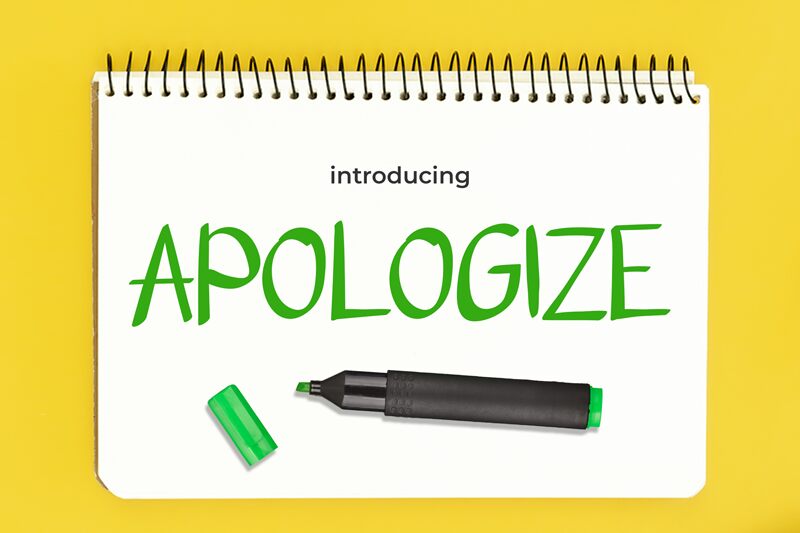
Apologize font by Pinisiart is a free handwritten font with a personal, energetic touch. The smooth curves and playful characters offer a clean and modern look, perfect for readers’ attention when delivering an informal style. Casual and fun, this font is approachable, and with its wide range of versatile characters, its flowing lines will bring energy to every design it decorates.
This font is a wonderful addition to greeting and invitation cards and both printed and long forms of texts. Use it to create apparel items like printed t-shirts and hoodies and fashion dish towels or go big with store signs. All ages can enjoy this fun font, so you can use it for kids’ magazine covers, educational books, and cartoon designs.